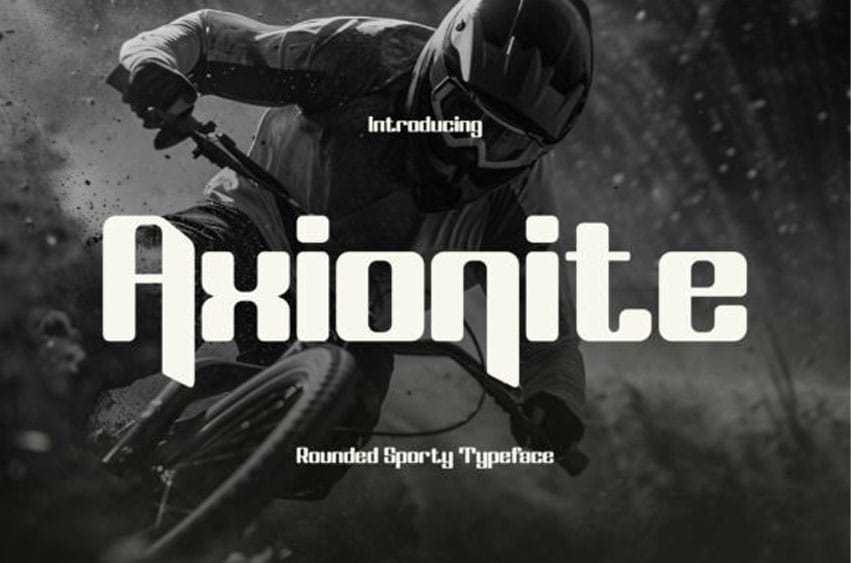
Axionite Font is a modern rounded sporty sans serif font built for energy, motion, and bold visual impact. Designed with smooth curves and strong geometric forms, this typeface brings a dynamic and friendly personality while maintaining a clean and professional look.
Its rounded edges soften the sporty aesthetic, making it versatile for both aggressive and approachable design styles.